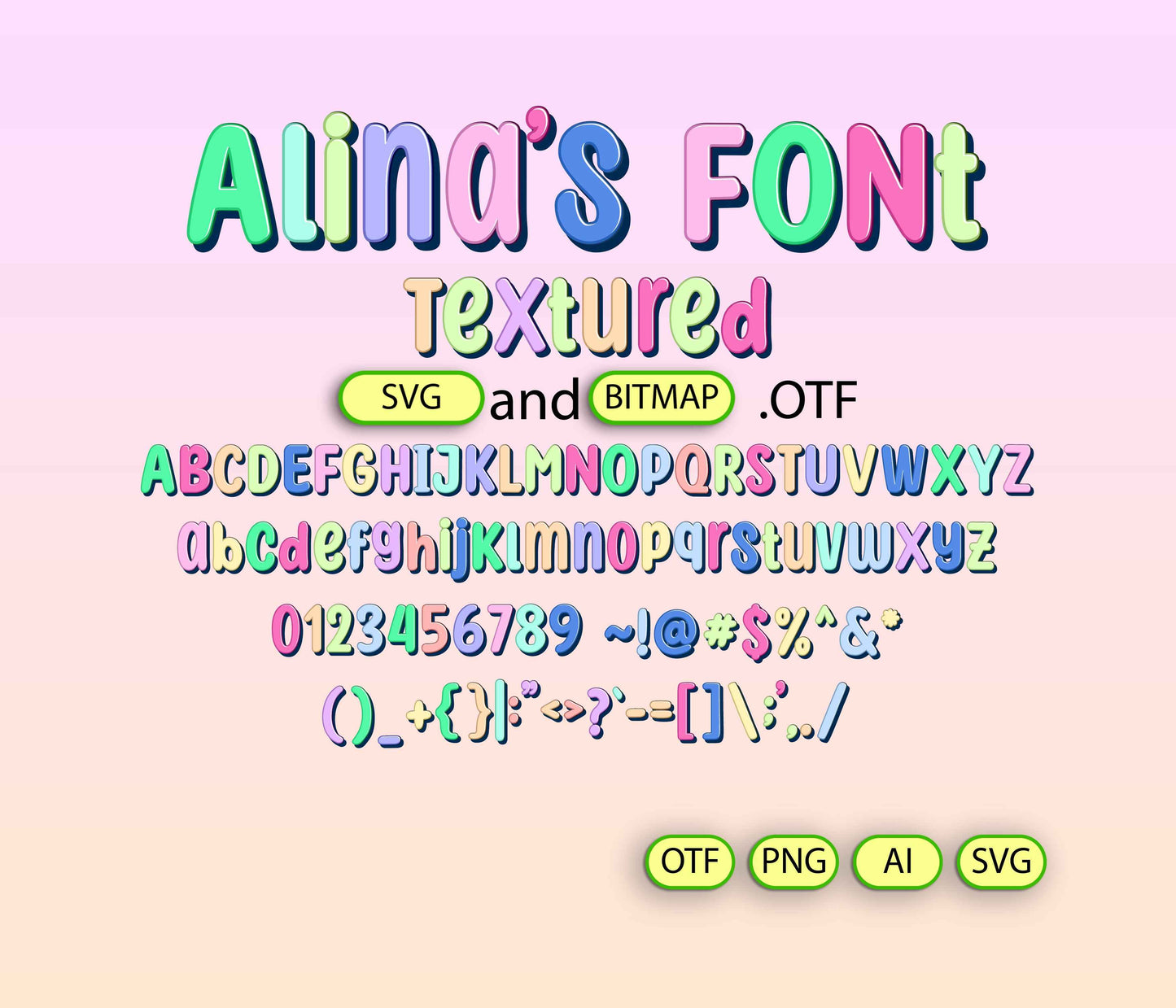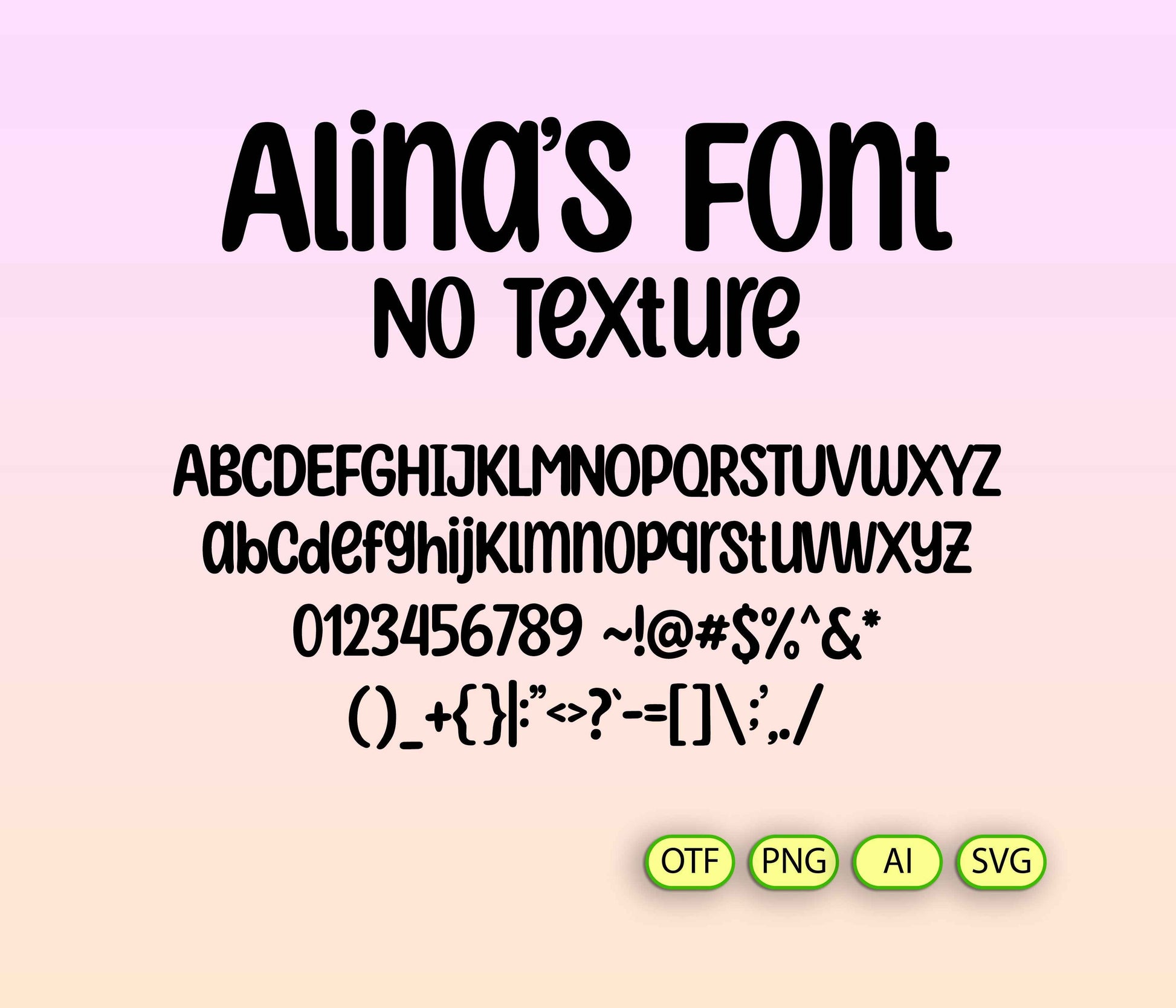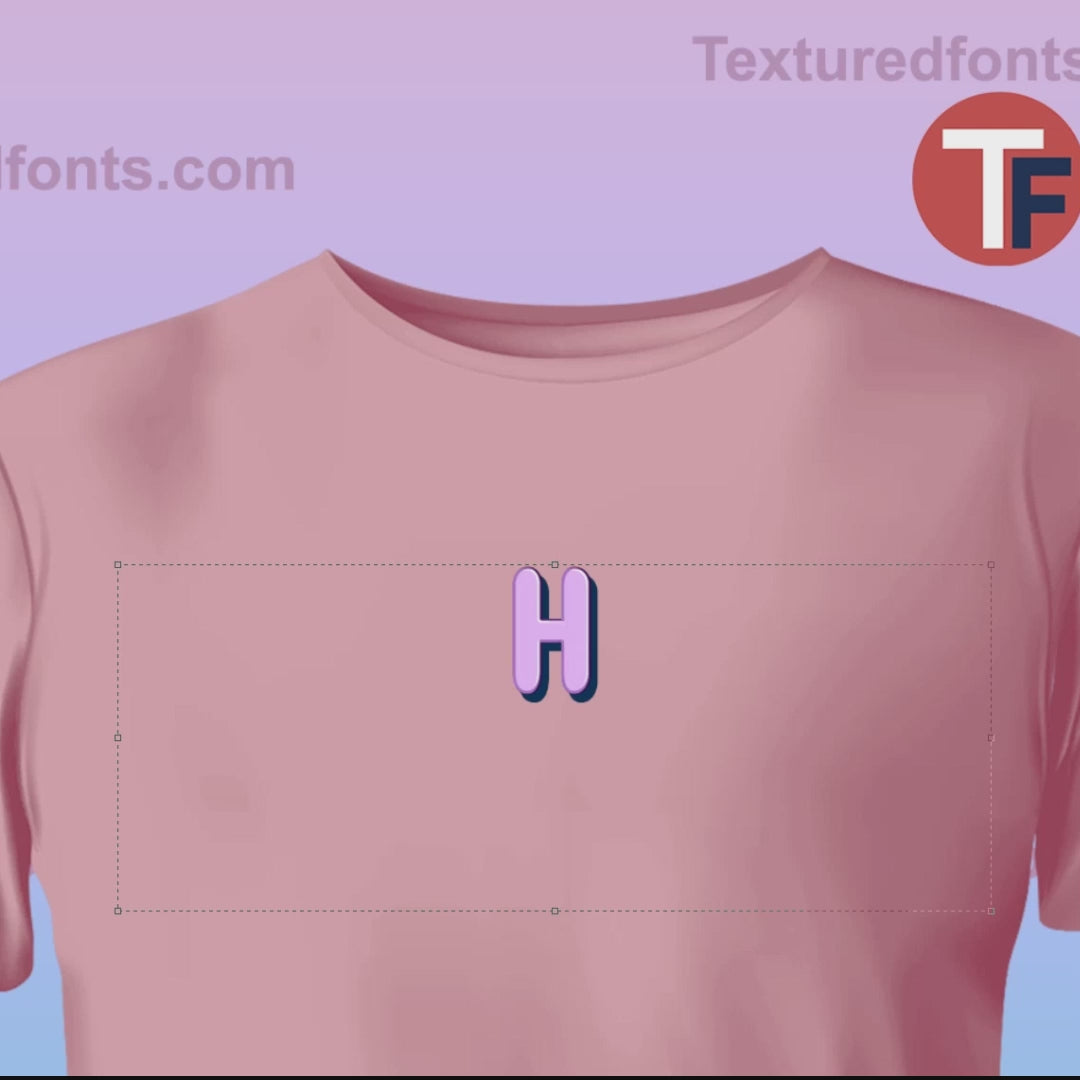
Whimsical Easter Font Textured
Fresh Spring Typography
Celebrate the joy and renewal of Easter with our specially designed Easter font, a vibrant and spirited creation inspired by the season of new beginnings. This font captures the essence of Easter's traditions and symbols, from the blooming flowers of spring to the iconic Easter eggs and bunnies that signify rebirth and joy. Perfect for families, communities, and creators looking to infuse their projects with the warmth, hope, and festive spirit of Easter, this typeface invites you to craft messages and designs that resonate with the holiday's themes of renewal, faith, and celebration.
The Easter font is incredibly versatile, making it suitable for a variety of creative and promotional projects:
- Holiday Greetings and Invitations: Design heartfelt Easter cards, invitations to Easter egg hunts, and messages of renewal and hope.
- Event Posters and Signage: Create eye-catching posters for community Easter events, church services, and spring festivals.
- Social Media Campaigns: Craft engaging content that captures the essence of Easter, perfect for sharing with friends, family, and followers.
- Educational Materials: Add a festive twist to educational resources about Easter traditions, springtime changes, and cultural celebrations.
- Merchandise Design: Design T-shirts, mugs, and tote bags that celebrate the joy of Easter with fun and colorful imagery.
- Website and Blog Design: Enhance online platforms with Easter-themed headers, banners, and typography that welcomes the spring season.
- Packaging Design: For Easter-related products or seasonal promotions, adding a festive and attractive touch to packaging.
- Digital Content Creation: Produce vibrant graphics, video thumbnails, and digital art that reflect the spirit of Easter and spring renewal.
- Comprehensive Character Set: Equipped with an extensive selection of characters to support a wide range of creative projects, from simple designs to complex compositions requiring special symbols.
The Easter font is more than just a collection of letters; it's a celebration of spring, renewal, and the joyful spirit of Easter. Whether used for personal projects, community events, or commercial endeavors, this font adds a layer of warmth and festivity, making every creation a vibrant homage to the season. Embrace the renewal of Easter, and let your designs bloom with the hope, joy, and colorful essence of this cherished time of year.